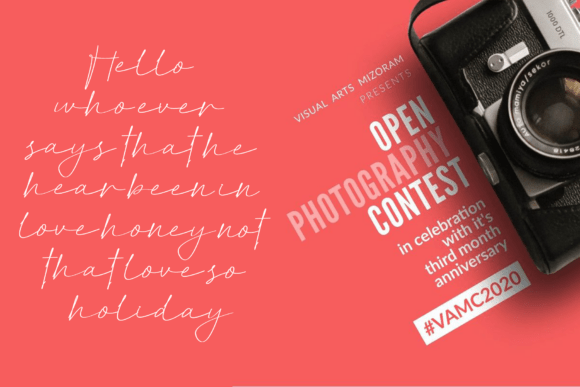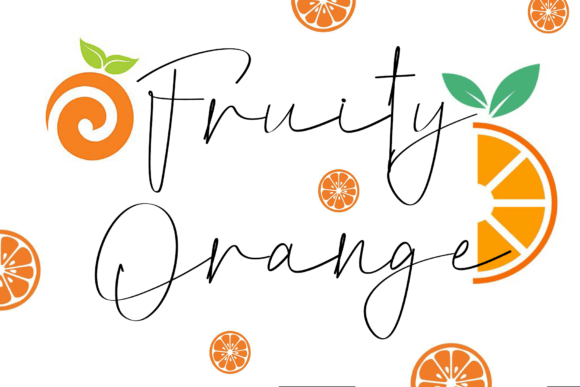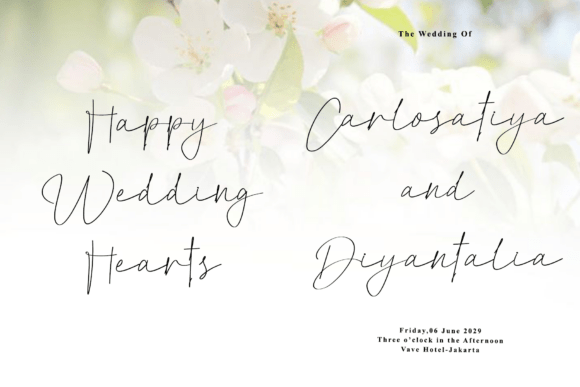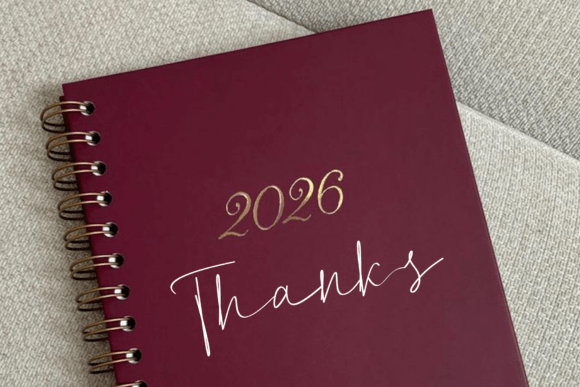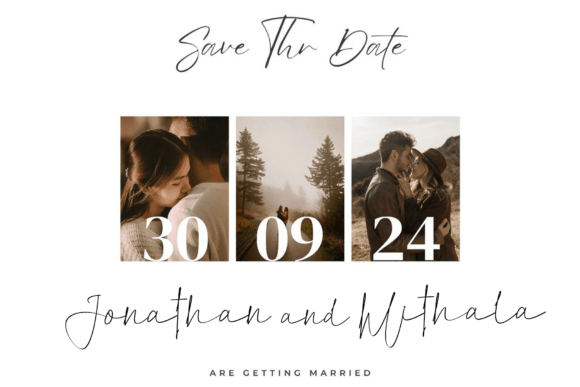
Betters Dreams Font: Elevate Your Design with a Touch of Sophistication
Are you looking for a font that exudes elegance and sophistication? Look no further than Betters Dreams, a delicate and airy script font that captures a refined, “dreamy” aesthetic. This beautiful typeface is perfect for designers and crafters seeking to add a touch of luxury to their projects. In this article, we’ll dive into the features and benefits of Betters Dreams, and explore how it can elevate your design work.
A Delicate yet Refined Typeface
Betters Dreams boasts exceptionally fine, monolinear strokes that give it a natural, upright posture. The font’s expansive character spacing ensures that each letter has ample room to breathe, creating a clean and airy feel. This refined typeface is ideal for high-end lifestyle branding, boutique photography watermarks, elegant event stationery, and professional signature-style logos.
The Defining Feature: Soaring Horizontal Terminal Swashes
The creative hallmark of Betters Dreams is its use of soaring, horizontal terminal swashes. These elegant swashes give the text a clean, signature-like quality that’s perfect for adding a touch of sophistication to your designs. The swashes also help to create a sense of movement and fluidity, making the font feel dynamic and engaging.
Perfect for High-End Design Projects
Betters Dreams is a premier choice for designers working on high-end lifestyle branding projects. Its refined aesthetic and elegant swashes make it perfect for creating luxurious logos, business cards, and marketing materials. The font is also well-suited for boutique photography watermarks, adding a touch of sophistication to your images.
Elegant Event Stationery and Professional Logos
In addition to its use in branding and photography, Betters Dreams is also ideal for creating elegant event stationery, such as wedding invitations, save-the-dates, and thank-you cards. The font’s refined aesthetic and beautiful swashes make it perfect for creating professional signature-style logos that will help you stand out from the crowd.
Tips for Using Betters Dreams in Your Designs
To get the most out of Betters Dreams, here are a few tips to keep in mind:
- Use Betters Dreams as a headline font to add a touch of sophistication to your designs.
- Pair Betters Dreams with a clean, sans-serif font for a beautiful contrast.
- Experiment with different swash styles to add visual interest to your text.
- Don’t be afraid to adjust the font size and spacing to create a unique look.
Why Choose Betters Dreams?
So why choose Betters Dreams over other script fonts? Here are just a few reasons:
- Unique aesthetic: Betters Dreams has a distinctive, refined aesthetic that’s hard to find in other fonts.
- High-end feel: The font’s elegant swashes and fine strokes give it a luxurious feel that’s perfect for high-end designs.
- Versatility: Betters Dreams can be used in a wide range of design projects, from branding and photography to event stationery and logos.
Betters Dreams is a beautiful, sophisticated script font that’s perfect for designers and crafters seeking to add a touch of luxury to their projects. With its delicate yet refined typeface, soaring horizontal terminal swashes, and expansive character spacing, this font is sure to elevate your design work. Whether you’re working on high-end lifestyle branding, boutique photography watermarks, elegant event stationery, or professional signature-style logos, Betters Dreams is a premier choice.